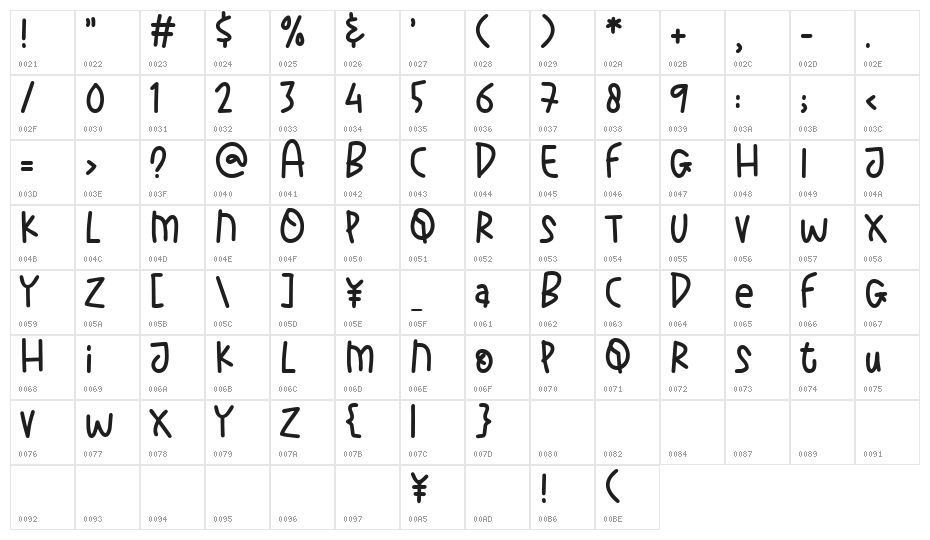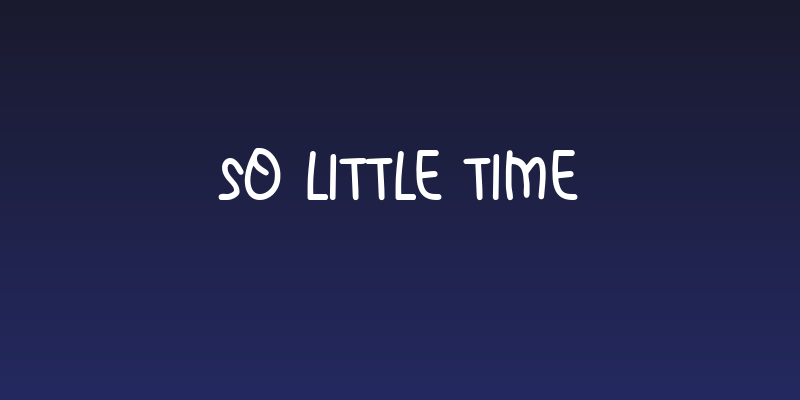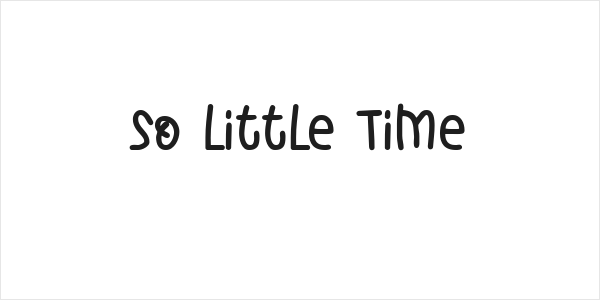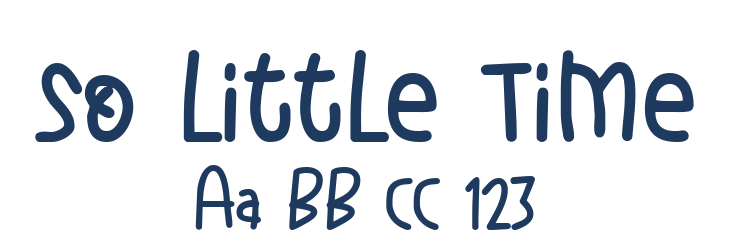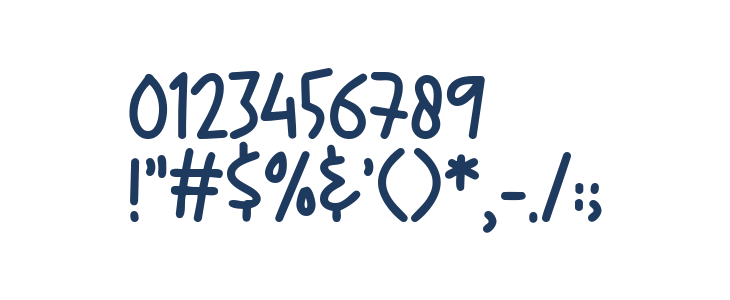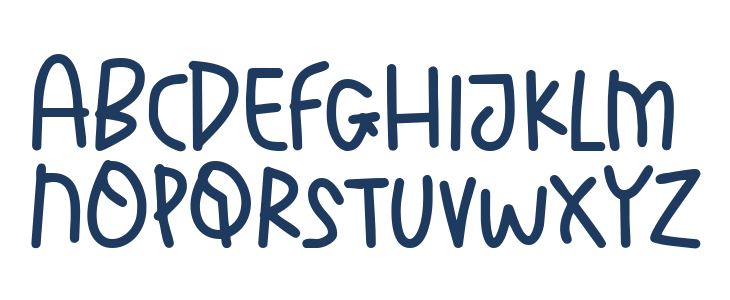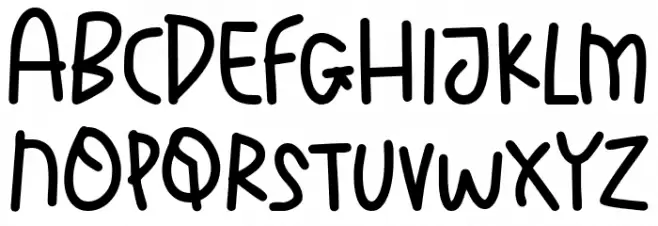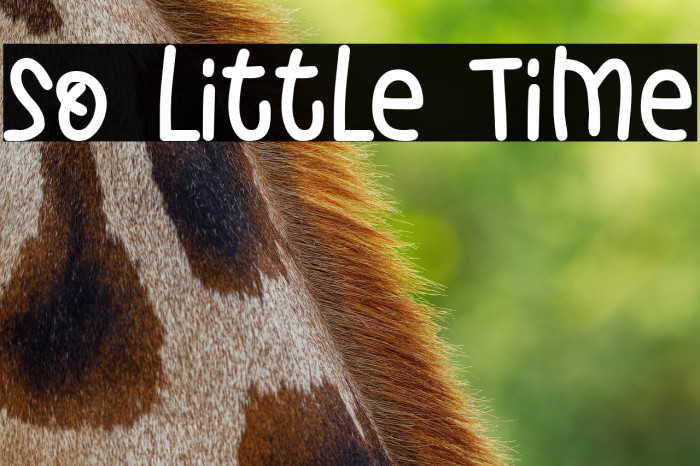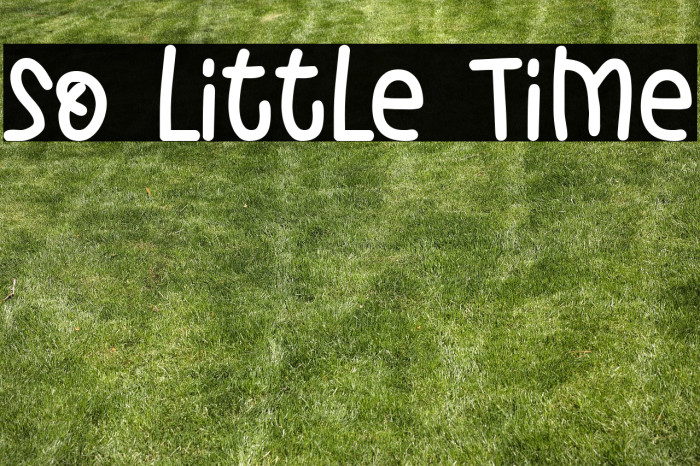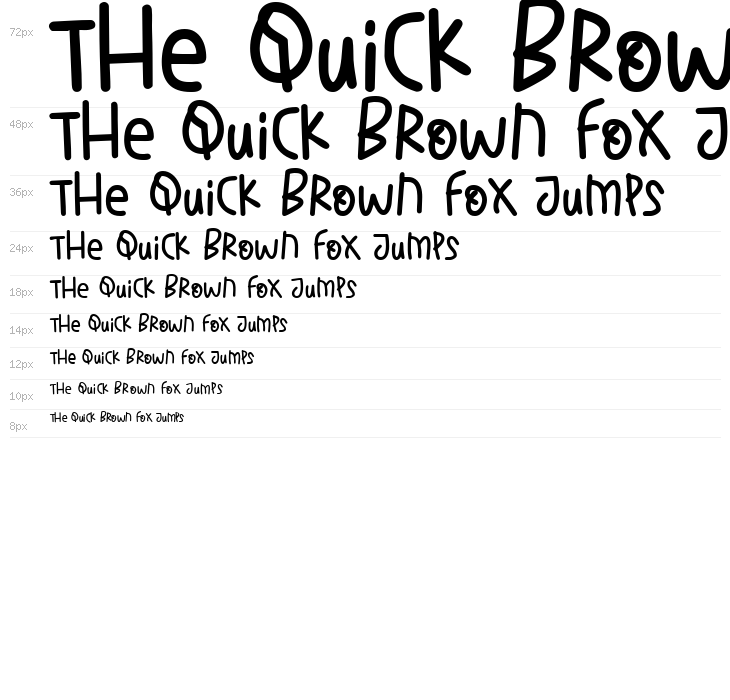
So Little Time Font
So Little Time Description
Playful, handwritten style font with rounded, irregular characters.
| Overall Style | Casual, Playful, Friendly |
| Use Case | Headlines, Body text, Logos, Invitations |